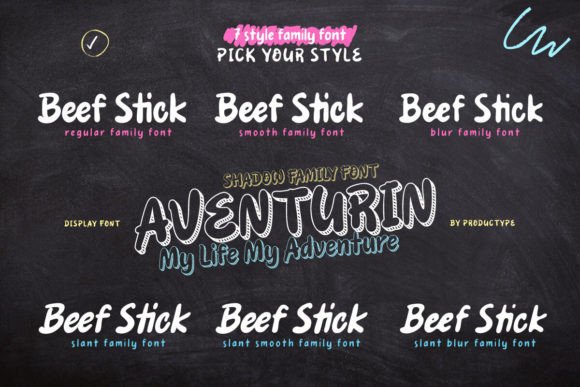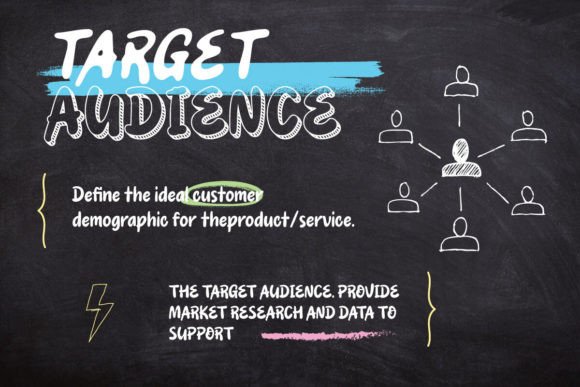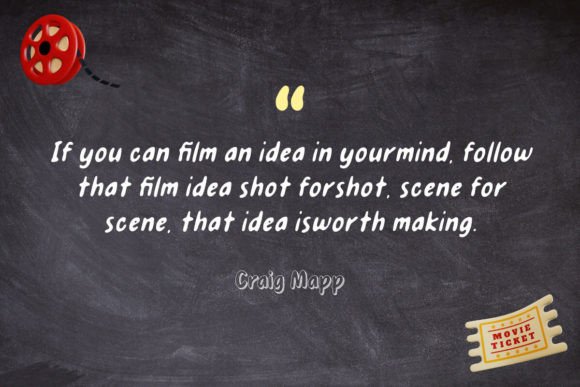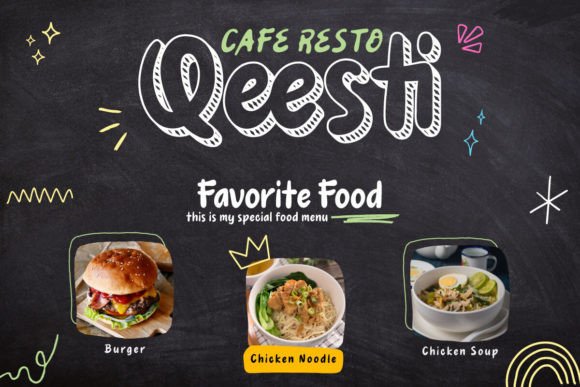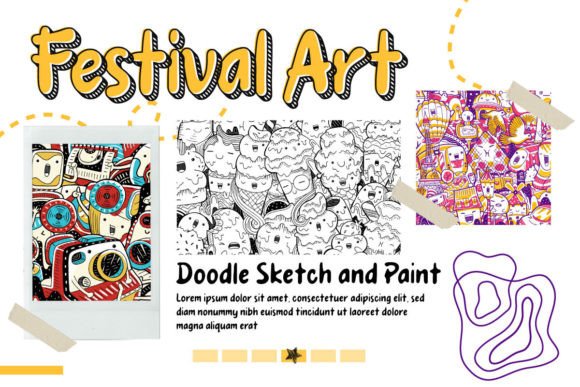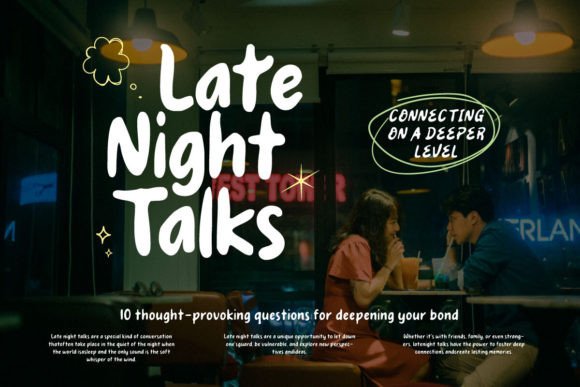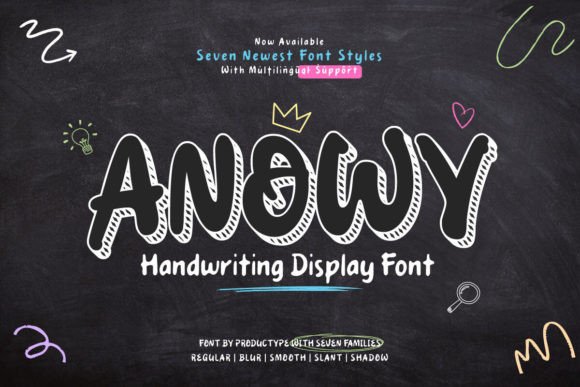
Discover the Charm of Anowy Font: Elevate Your Designs with Handwritten Elegance
Welcome to the world of Anowy, where handwriting seduces with impressive display dynamics. This font offers seven font styles including Regular for a classic look, Slant for a dynamic slanted touch, Blur for a natural ink writing effect, Smooth for softness, and Shadow for a dramatic feel. The Anowy font is a game-changer for designers and crafters looking to add a personal touch to their projects.
Seven Tiered Styles: Endless Design Possibilities
The specialty of the Anowy font is its seven tiered styles, which allow you to create a unique and attractive design according to your wishes. Whether you’re looking for a classic and elegant look or a more dynamic and playful feel, Anowy has got you covered. With seven style variants to choose from, you can experiment with different combinations to achieve the perfect look for your project.
- Regular: A classic look that’s perfect for formal designs and elegant projects.
- Slant: Adds a dynamic slanted touch to your text, ideal for creating a sense of movement and energy.
- Blur: Gives your text a natural ink writing effect, creating a soft and subtle look.
- Smooth: Offers a soft and smooth texture, perfect for designs that require a gentle feel.
- Shadow: Adds a dramatic feel to your text, ideal for creating a sense of depth and dimension.
A Touch of Handwritten Vulnerability
Every character in Anowy provides a touch of seductive handwriting, creating an air of authenticity and humanity in every detail. This handwritten vulnerability is what sets Anowy apart from other fonts, making it an ideal choice for projects that require a beautiful handwritten touch and a diversity of styles.
With Anowy, you can add a personal element to your designs, making them more relatable and engaging. Whether you’re designing promotional materials, greeting cards, or other creative works of art, Anowy brings an unmatched level of elegance and sophistication.
Why Choose Anowy Font?
Anowy is an ideal choice for designers and crafters looking for a font that offers a unique blend of elegance and playfulness. Here are just a few reasons why you should choose Anowy for your next project:
- Unique Design: Anowy offers a distinctive design that’s unlike any other font.
- Seven Style Variants: Experiment with different combinations to achieve the perfect look for your project.
- Handwritten Touch: Adds a personal element to your designs, making them more relatable and engaging.
- Elegant and Sophisticated: Perfect for projects that require a beautiful handwritten touch and a diversity of styles.
- Create stunning promotional materials that grab attention.
- Design beautiful greeting cards that leave a lasting impression.
- Develop creative works of art that showcase your unique style.